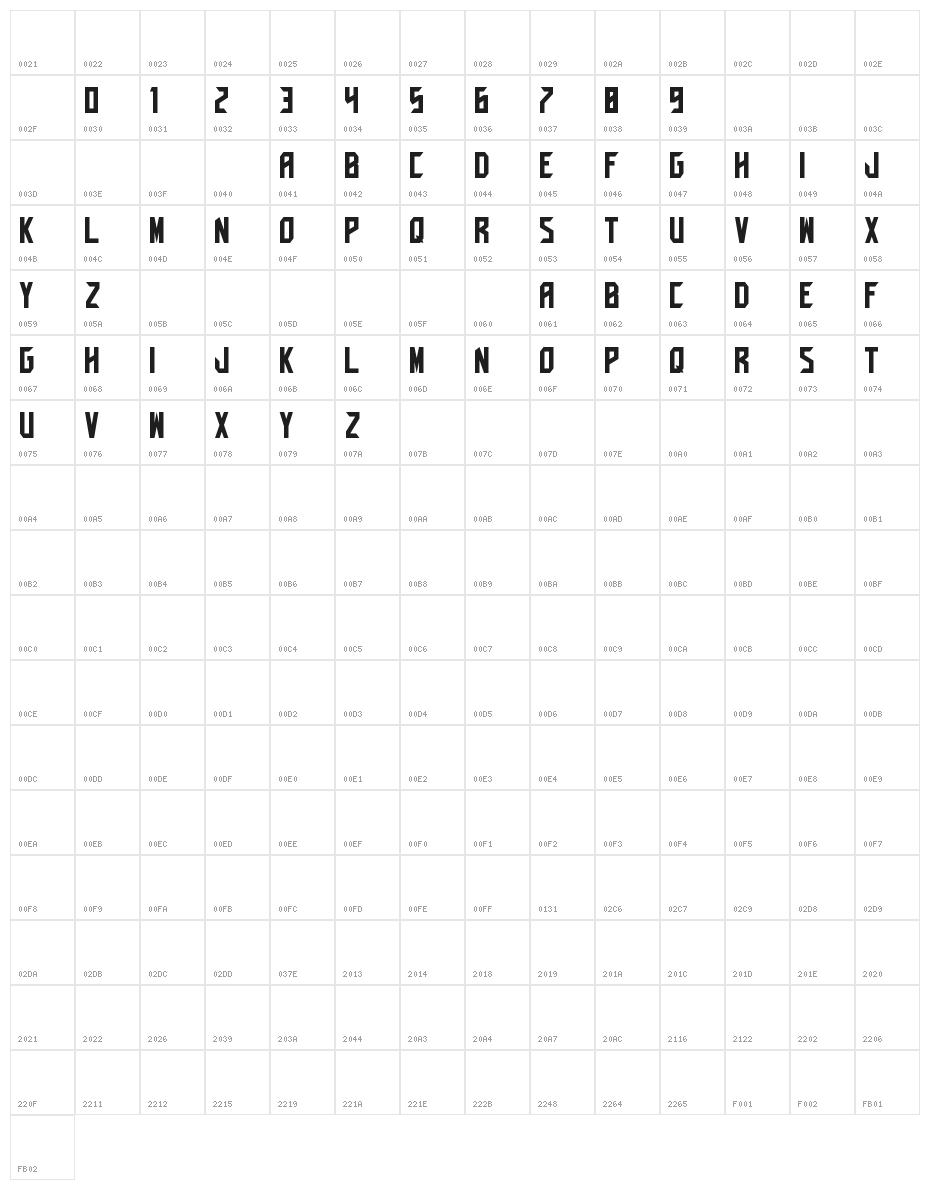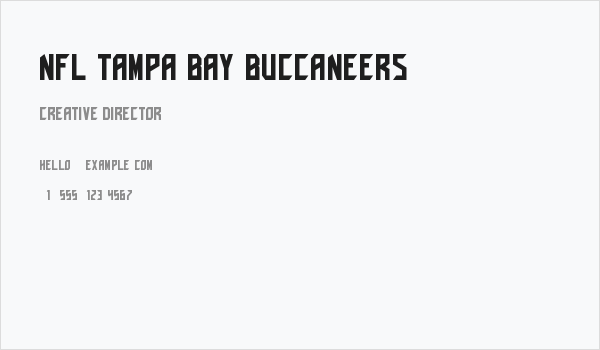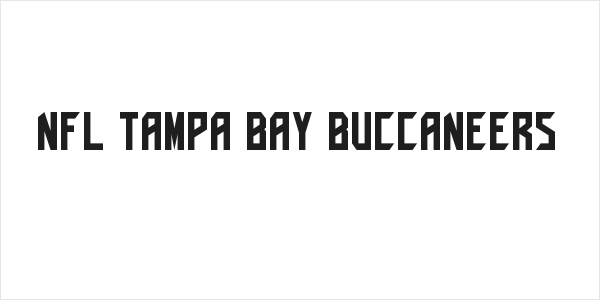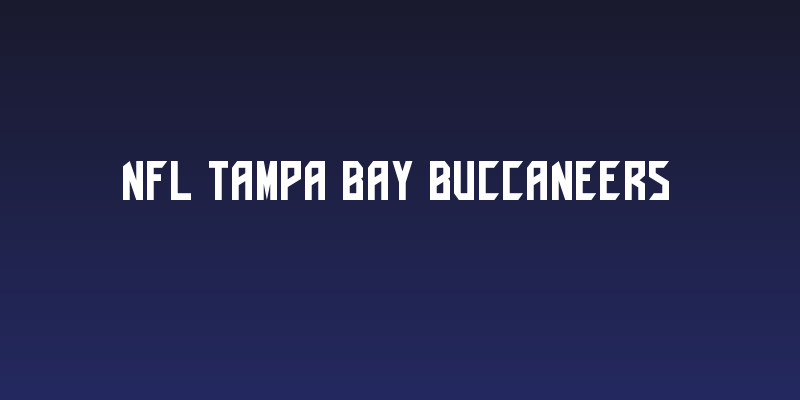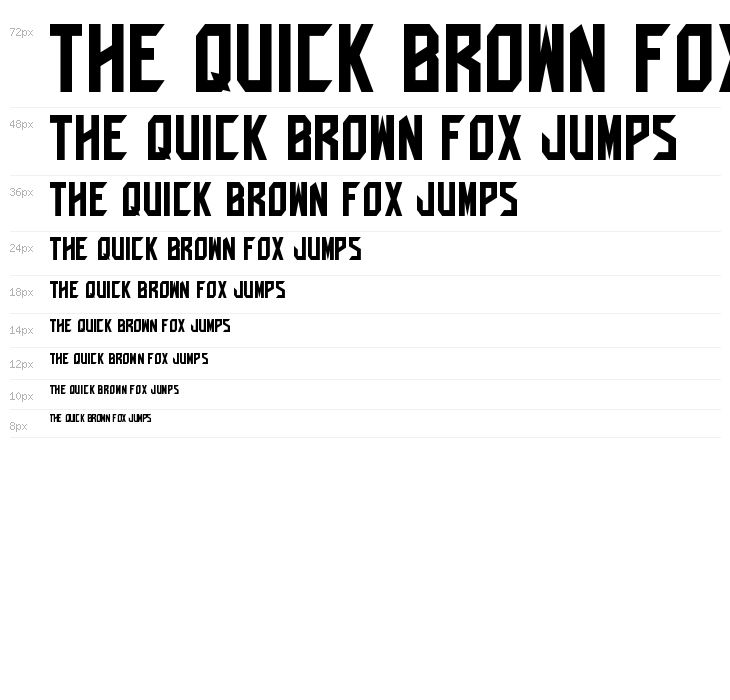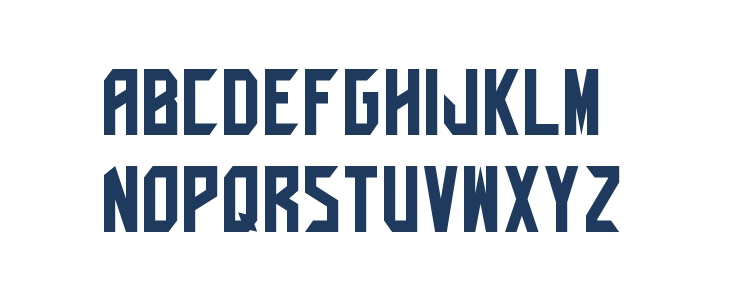
NFL Tampa Bay Buccaneers Font
NFL Tampa Bay Buccaneers Description
This font is characterized by its bold, angular design, reminiscent of sports team branding. The letters are constructed with sharp, geometric lines and a strong presence, making it ideal for conveying a sense of strength and determination. The uppercase letters are particularly striking, with a uniform height and width that creates a cohesive and powerful look. The numbers follow the same design principles, ensuring consistency across all characters. This font is perfect for projects that require a bold and impactful statement.
| Proposed Projects | Sports team logos, merchandise branding, posters, and promotional materials. |